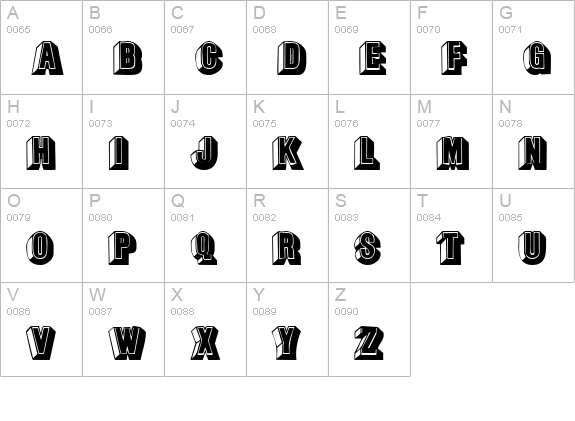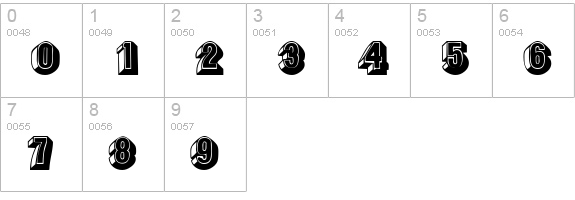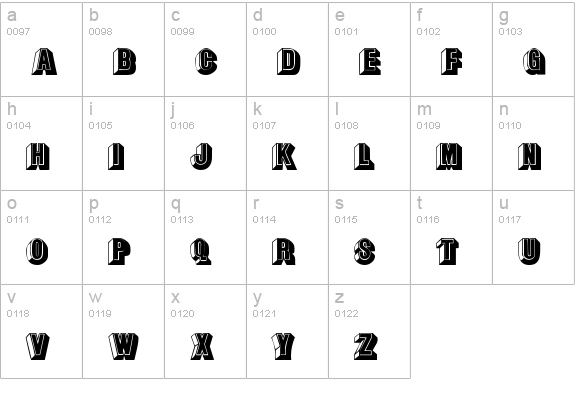
RascaSCapsSSK Font Details
RascaSCapsSSK is a stunning and versatile font that is sure to catch the eye of any designer or typographer. This font is perfect for creating bold and attention-grabbing headlines, logos, and branding materials. With its unique and edgy style, RascaSCapsSSK brings a modern and fresh look to any project. Its sharp and angular letterforms give it a sense of energy and dynamism, making it the perfect choice for projects that require a touch of excitement and flair. One of the standout features of RascaSCapsSSK is its incredible versatility. It can easily be scaled up or down without losing any of its visual impact, making it a great option for both small and large-scale designs. What's even better is that RascaSCapsSSK is available for free download at FontsMarket.com. This means that designers and creatives can access this amazing font without having to spend a penny. So whether you're working on a personal project or a commercial endeavor, RascaSCapsSSK is the font you need to make a lasting impression. Its bold and contemporary style, combined with its accessibility and affordability, make it a must-have in any designer's toolkit. Don't miss out on the opportunity to add RascaSCapsSSK to your font collection and take your designs to the next level.